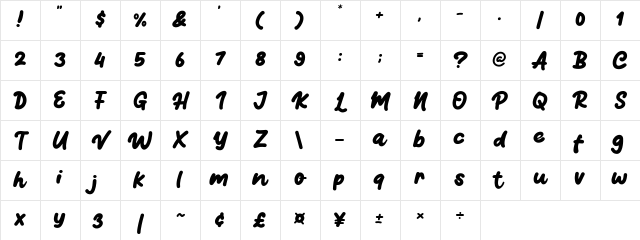
Bahu Regular Free Font
Bahu Regular
Foundry: Suzuran
Designer: Suzuran
Design Context for Bahu
Bahu is a composed and adaptable typeface that performs quietly and consistently across a wide range of design contexts.